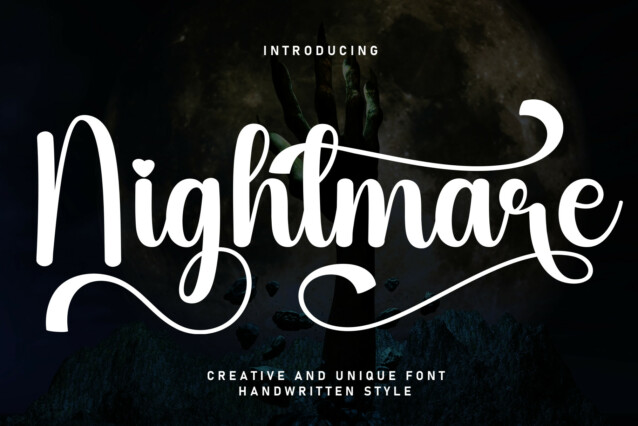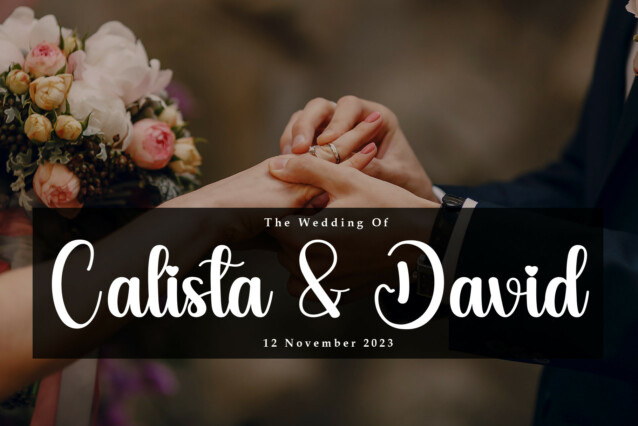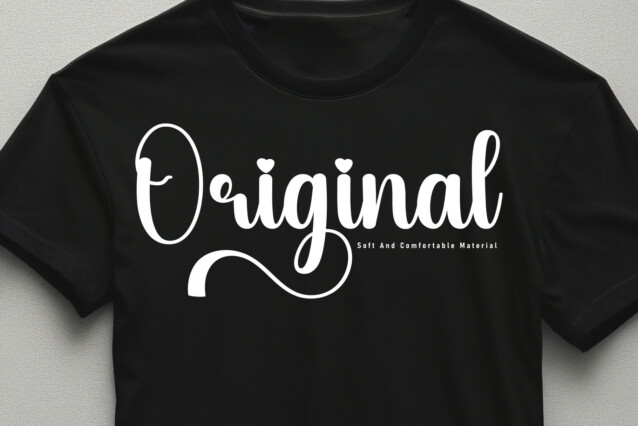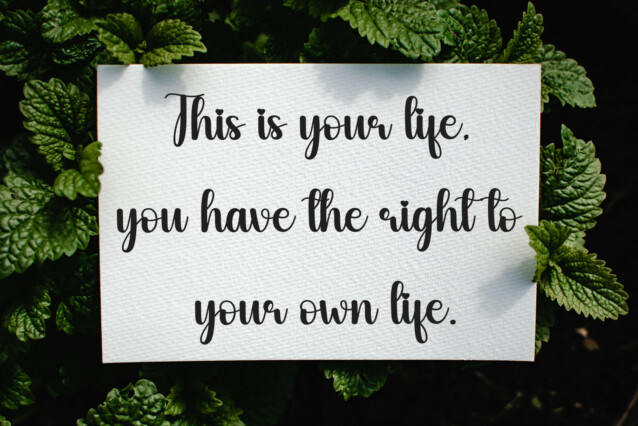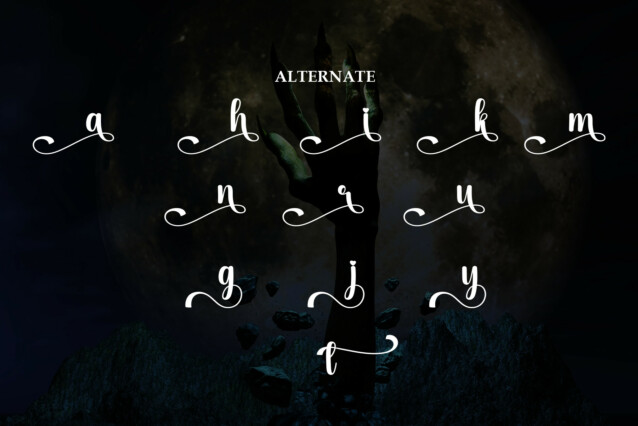
Nightmare Script Font is a sweet and friendly handwritten display font. Cute and fun, this font is ideal for writing wedding invitations, cards, or any other design that might need a playful touch!